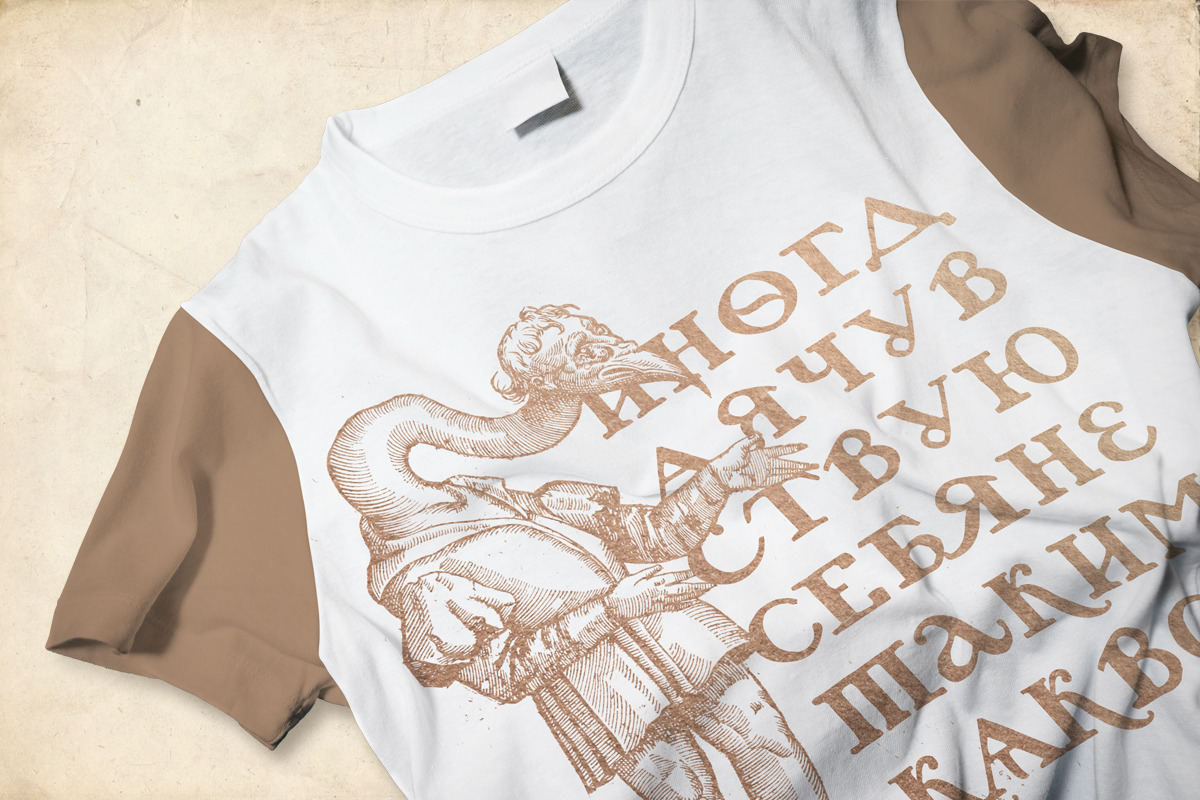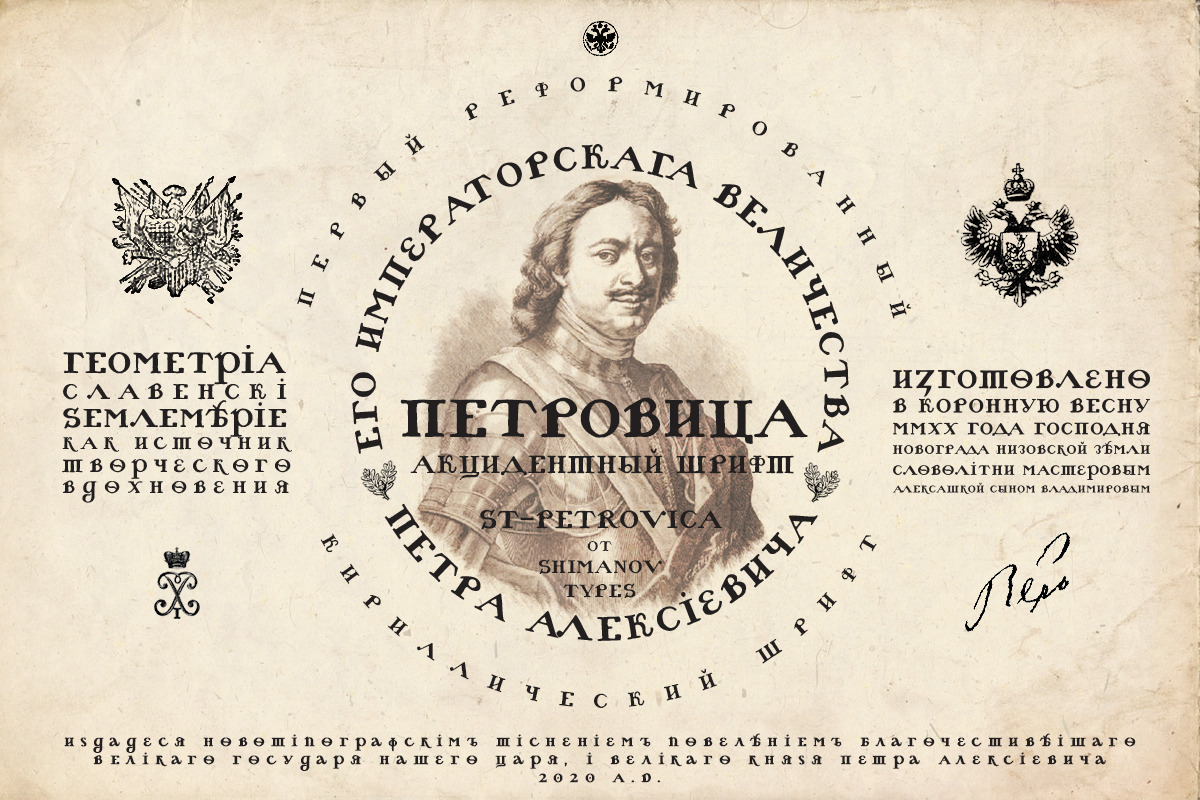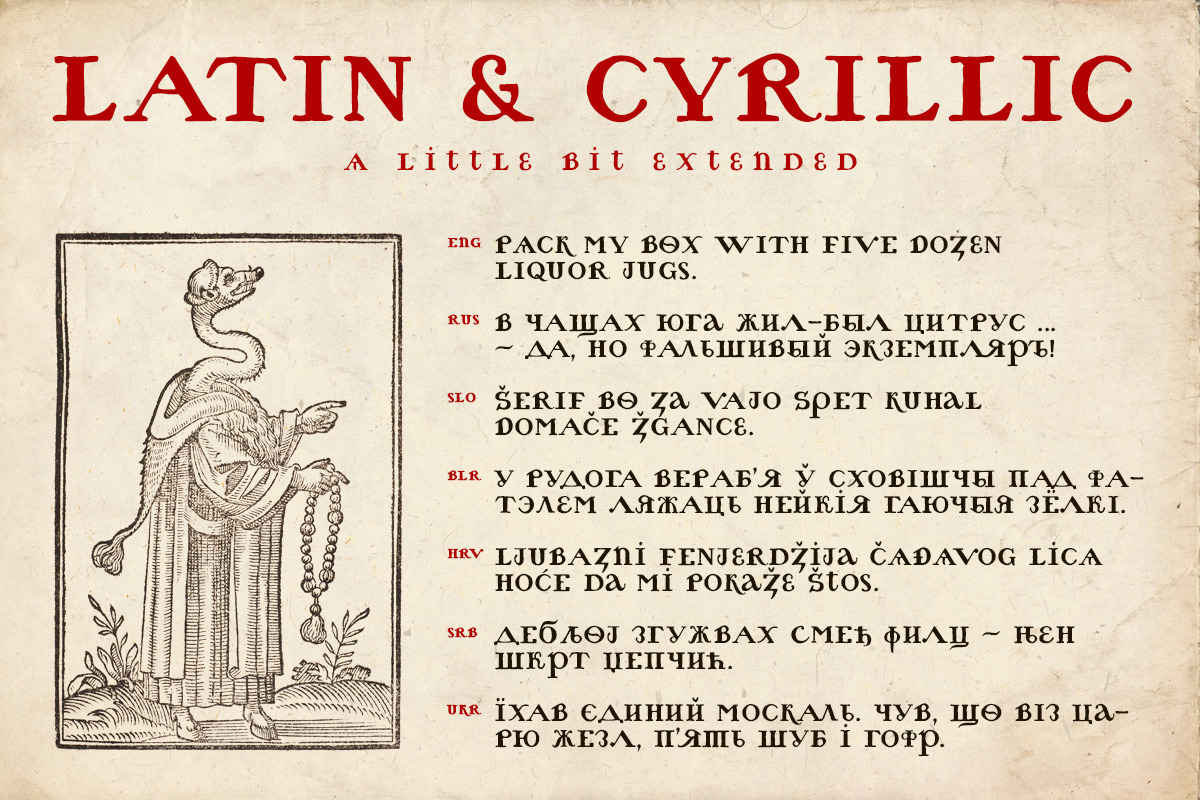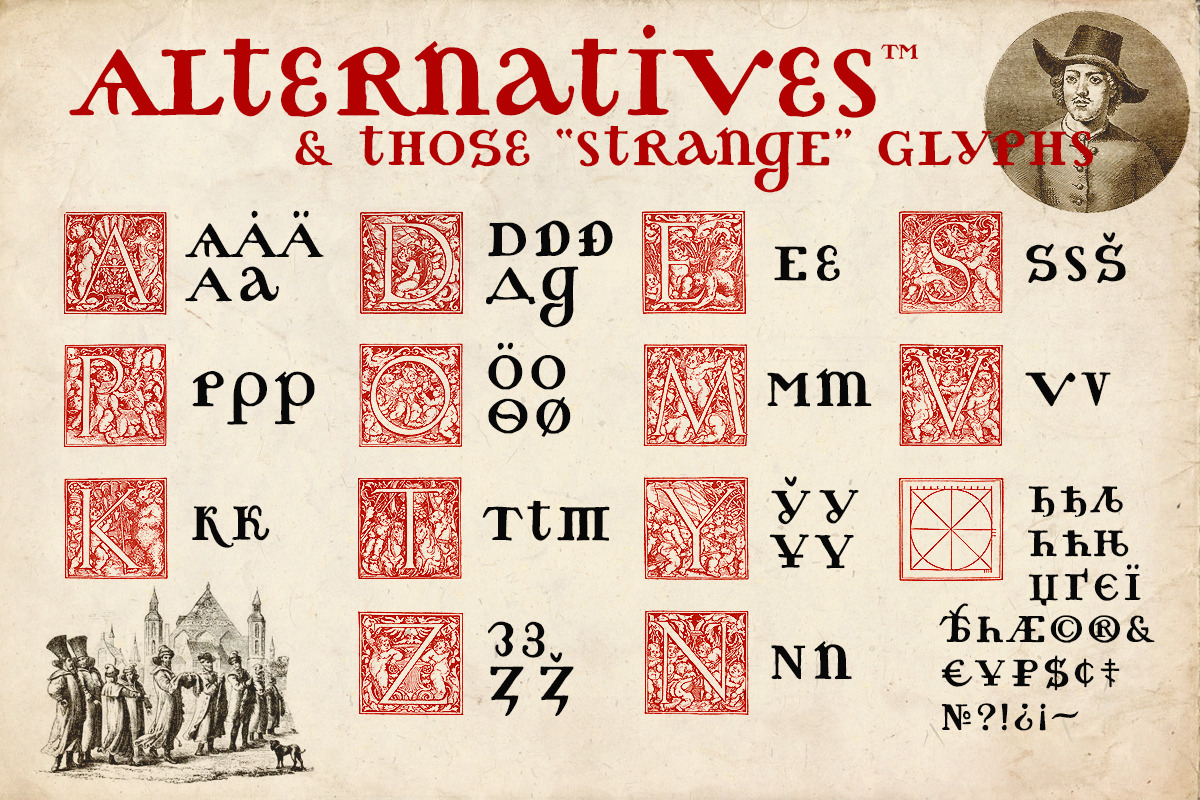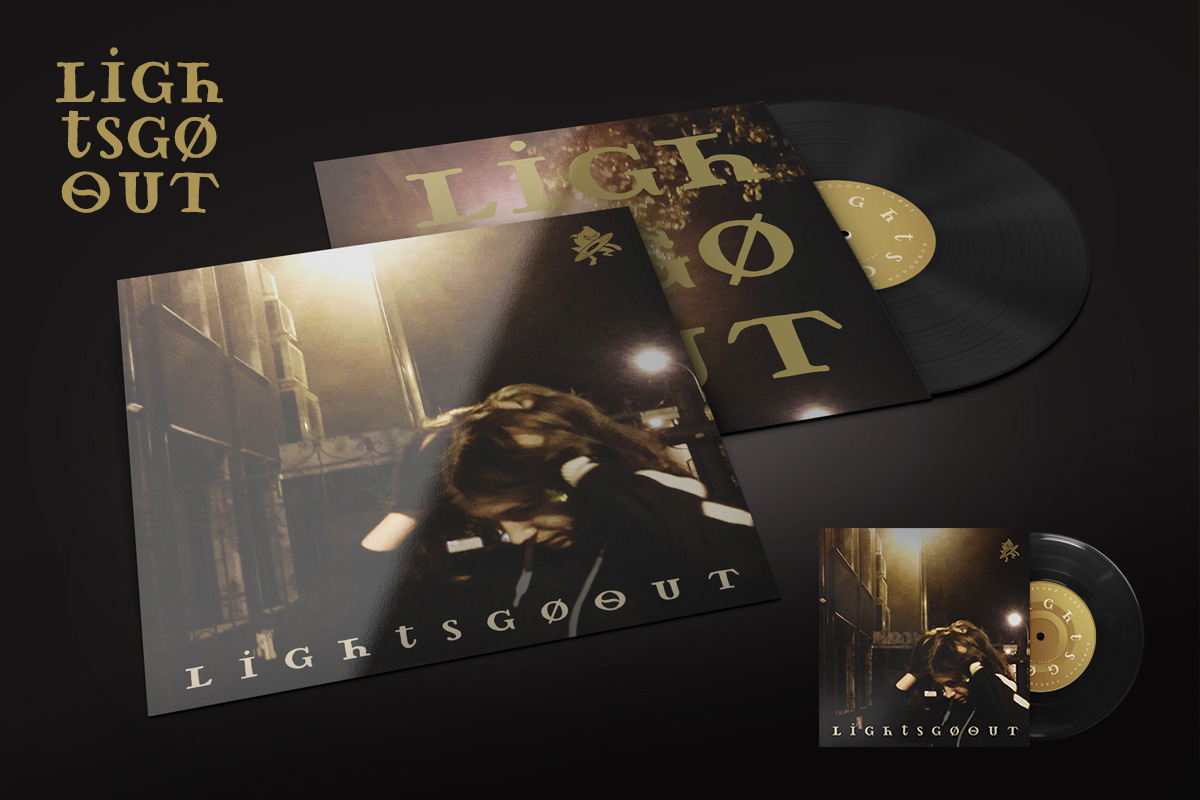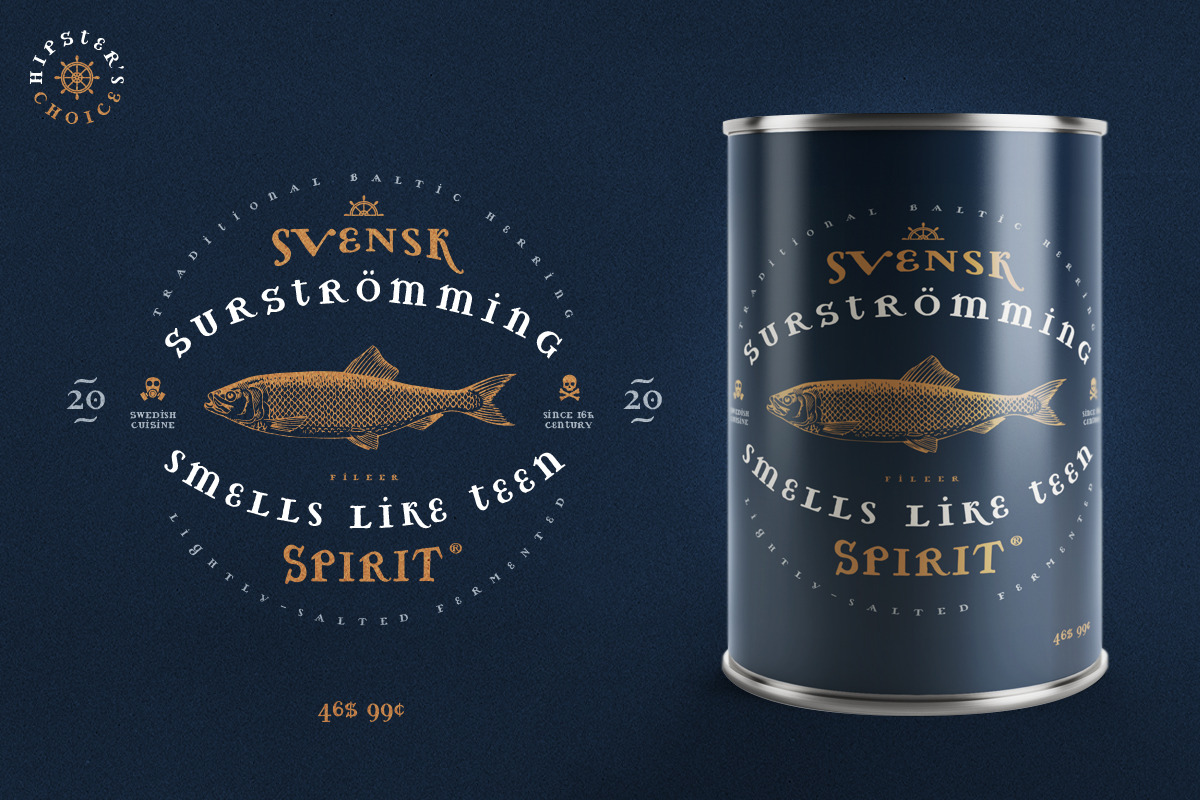
Petrovica - Russian Emperor font
"Petrovica" - historical stylization of the first reformed “civilian” Cyrillic font of the Russian emperor Peter the Great from the beginning of the 18th century. The history of its appearance is very unique and reflects the turbulent era of the accomplishments of the First Russian Emperor. For many centuries, the Cyrillic fonts were froze in their ancient forms inherited by Russia from the Byzantine church in 10-11th century. Dutch type masters made a new Russian Cyrillic font at the behest of Peter the Great, and it was based on personal sketches of the emperor. The new font called "civillian" had a very specific look due to the mixing of medieval archaic forms and the latest European type design. The font is not a reliable historical replica, but only an artistic stylization. The font has a strong handmade look and keeps the spirit of European history.
It has Extended LATIN and Extended CYRILLIC letters, numerals and basic punctuation. Supported languages: English, Russian, Belarusian, Bosnian, Bulgarian, Croatian, Macedonian, Serbian, Slovenian, Ukrainian and probably others )
Base style is Uppercase and smallcase for alternative glyphs. Take a look at the cyrillic glyphs if you want more alternative letters.
"Petrovica" can be used for a wide range of tasks: movie titles, poster design, web design, branding and packaging works, illustrations, badges and other typography works.